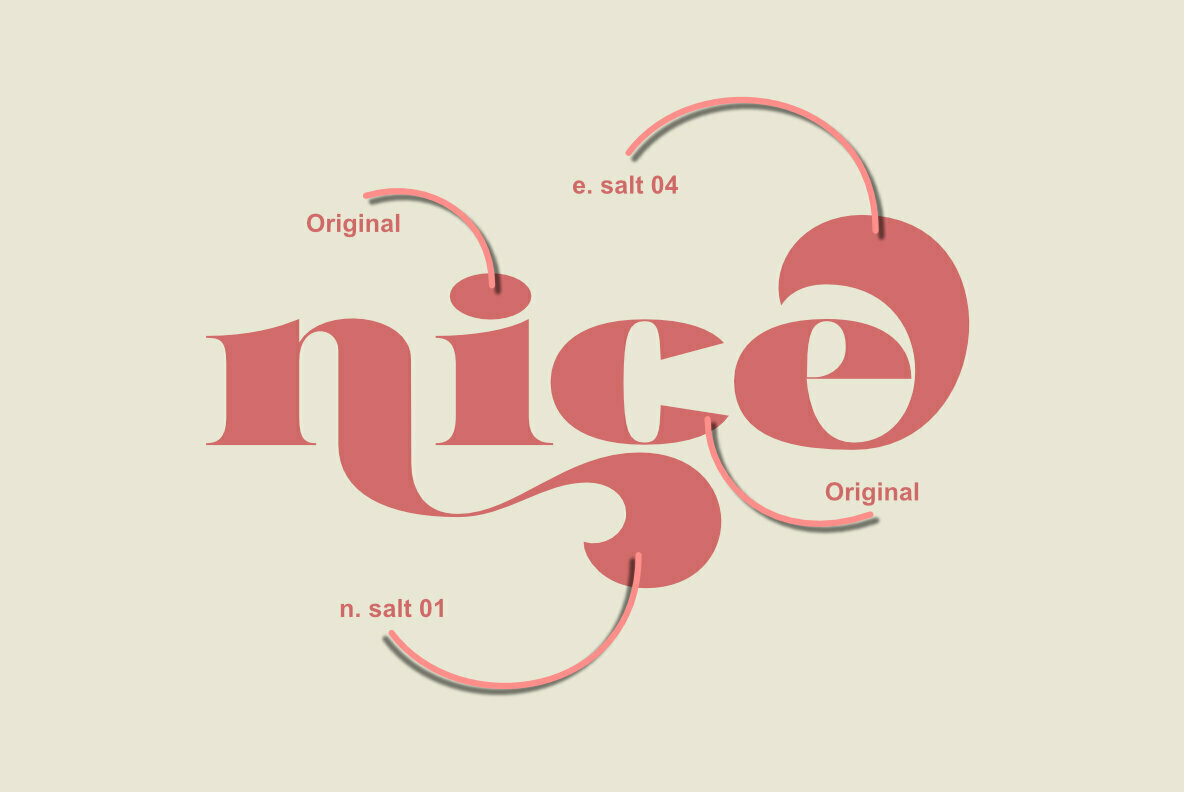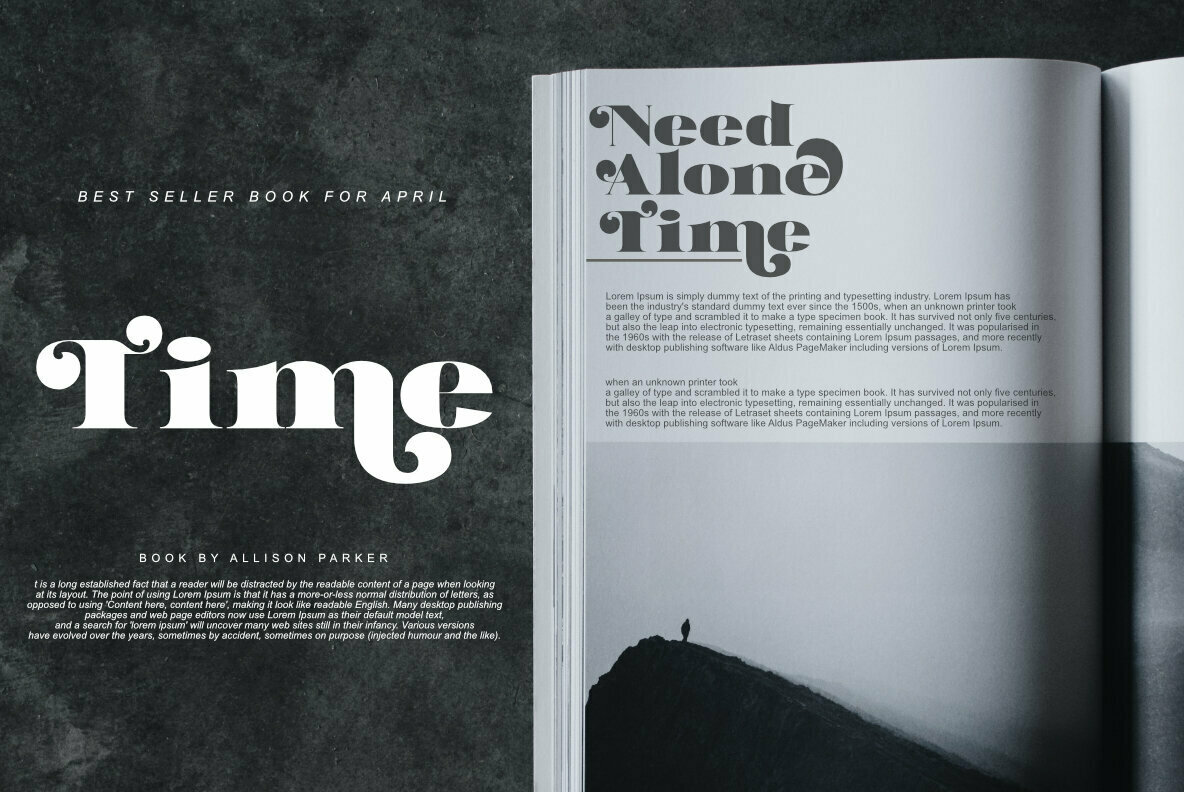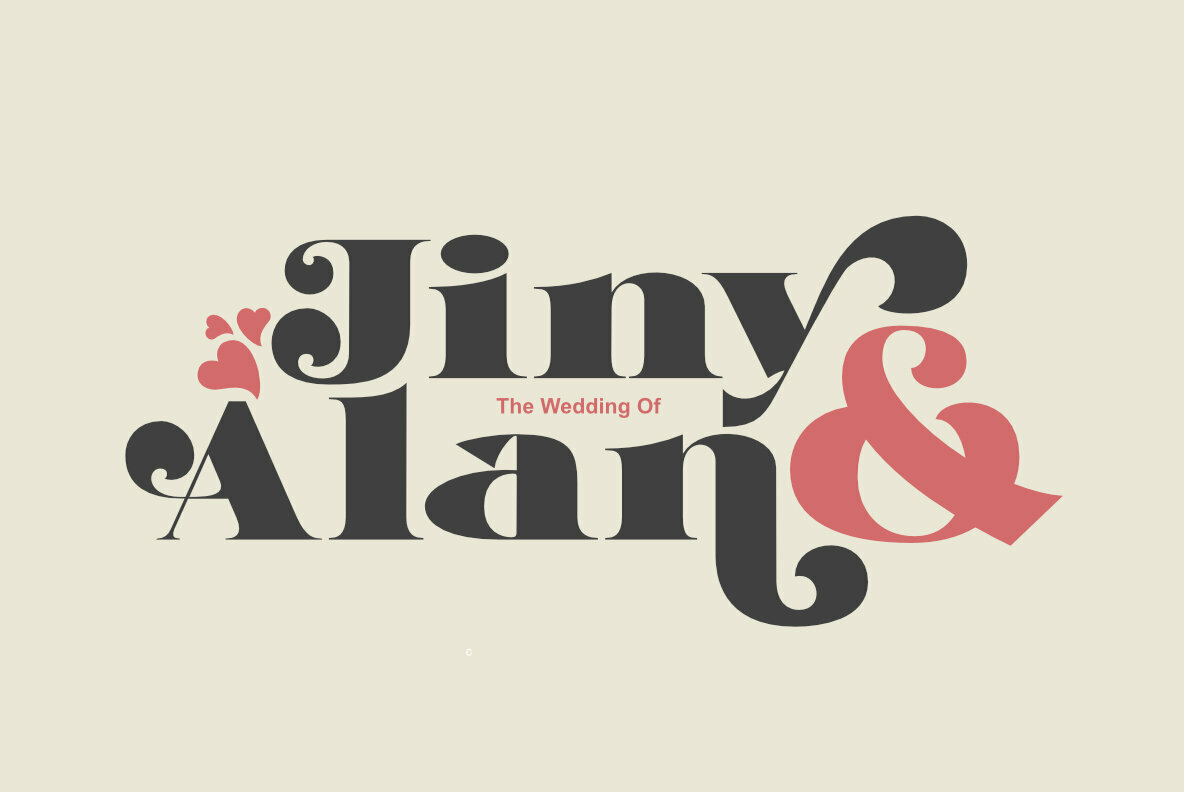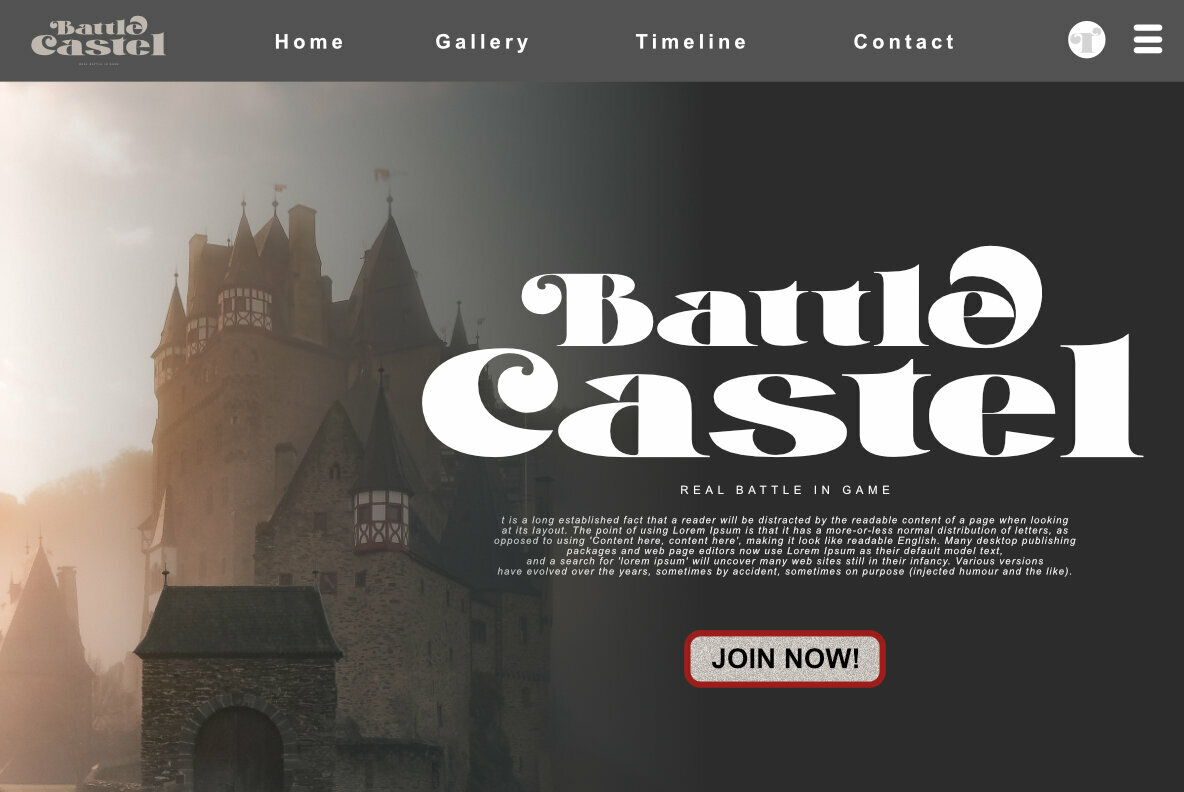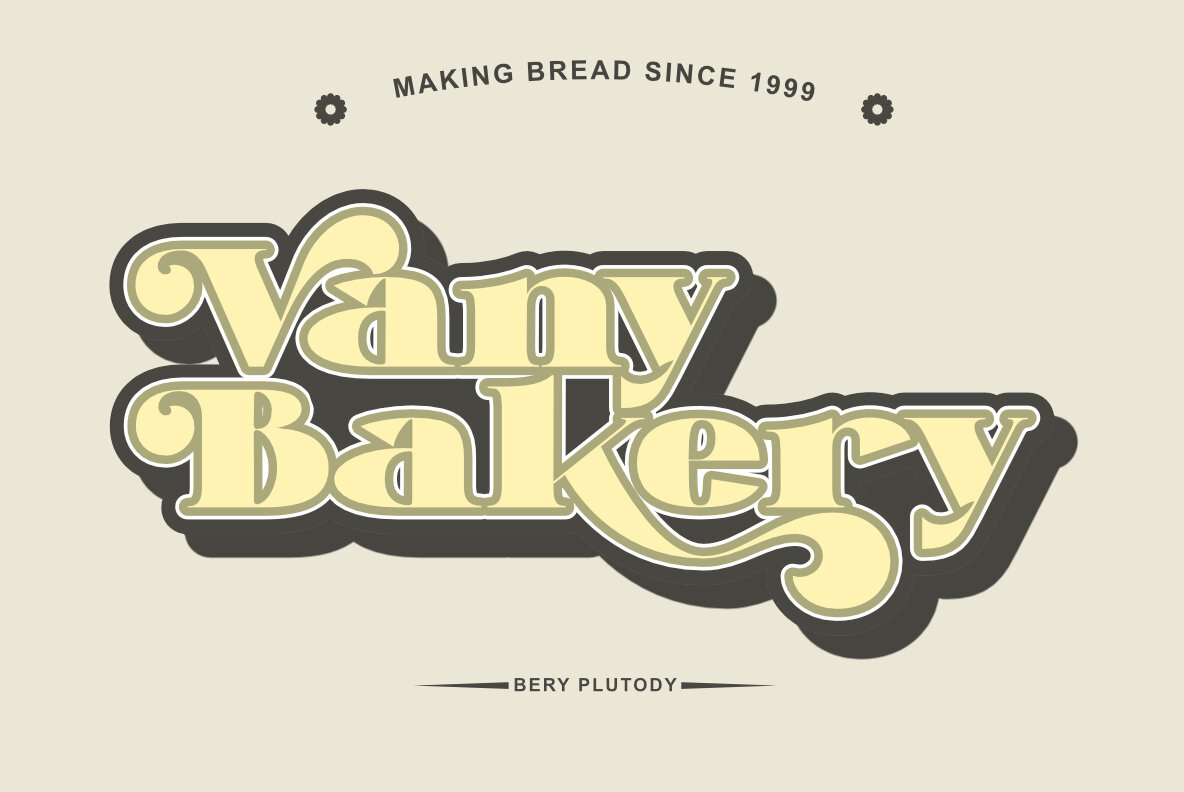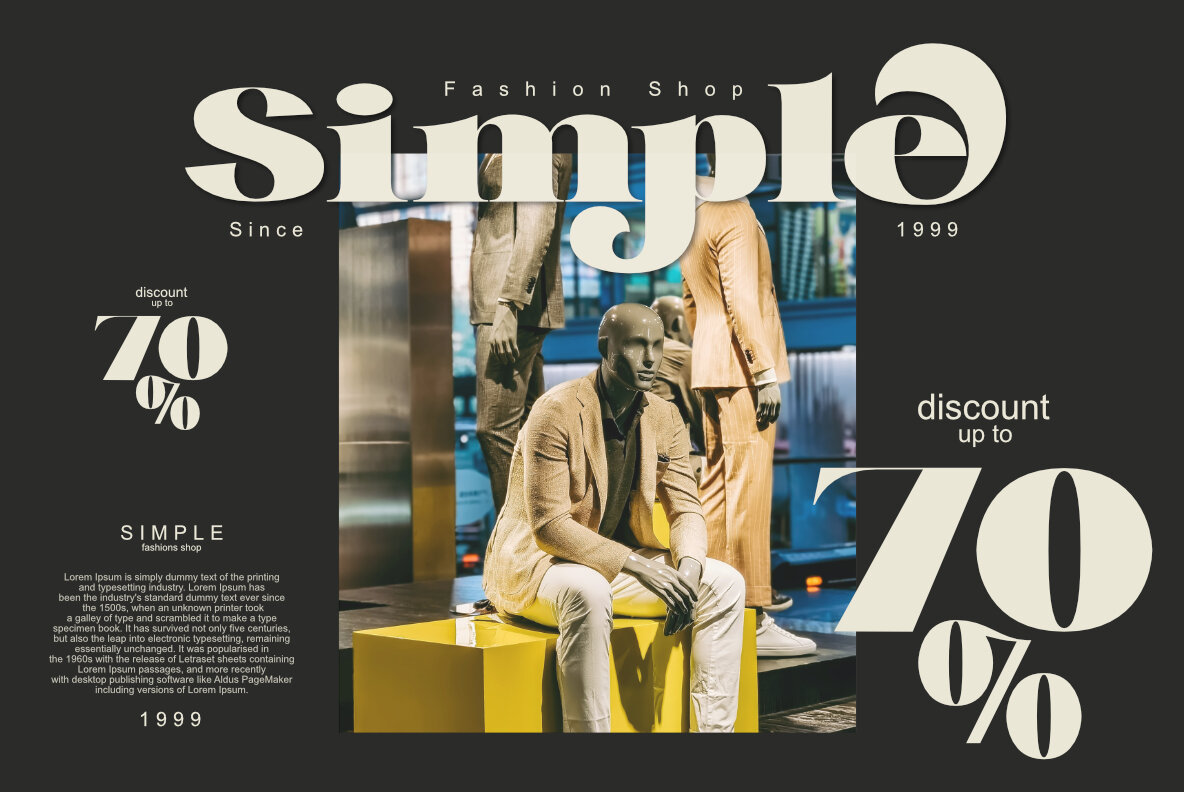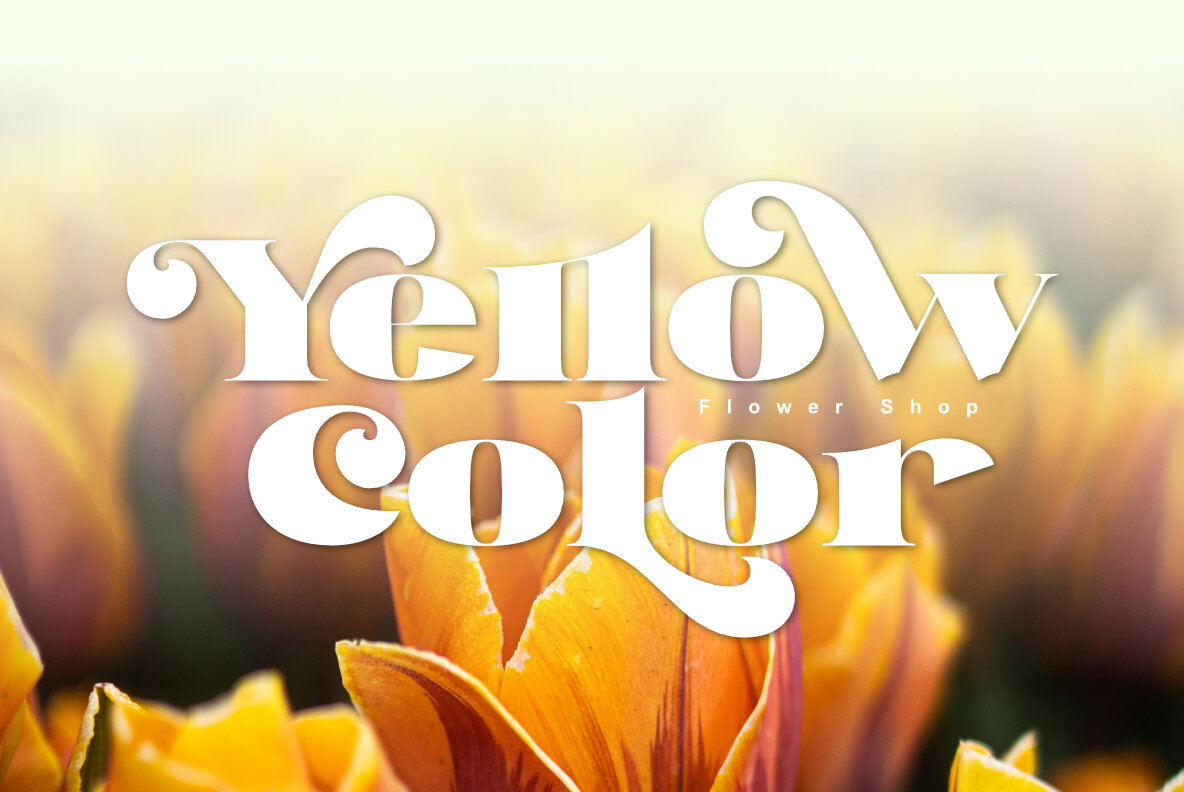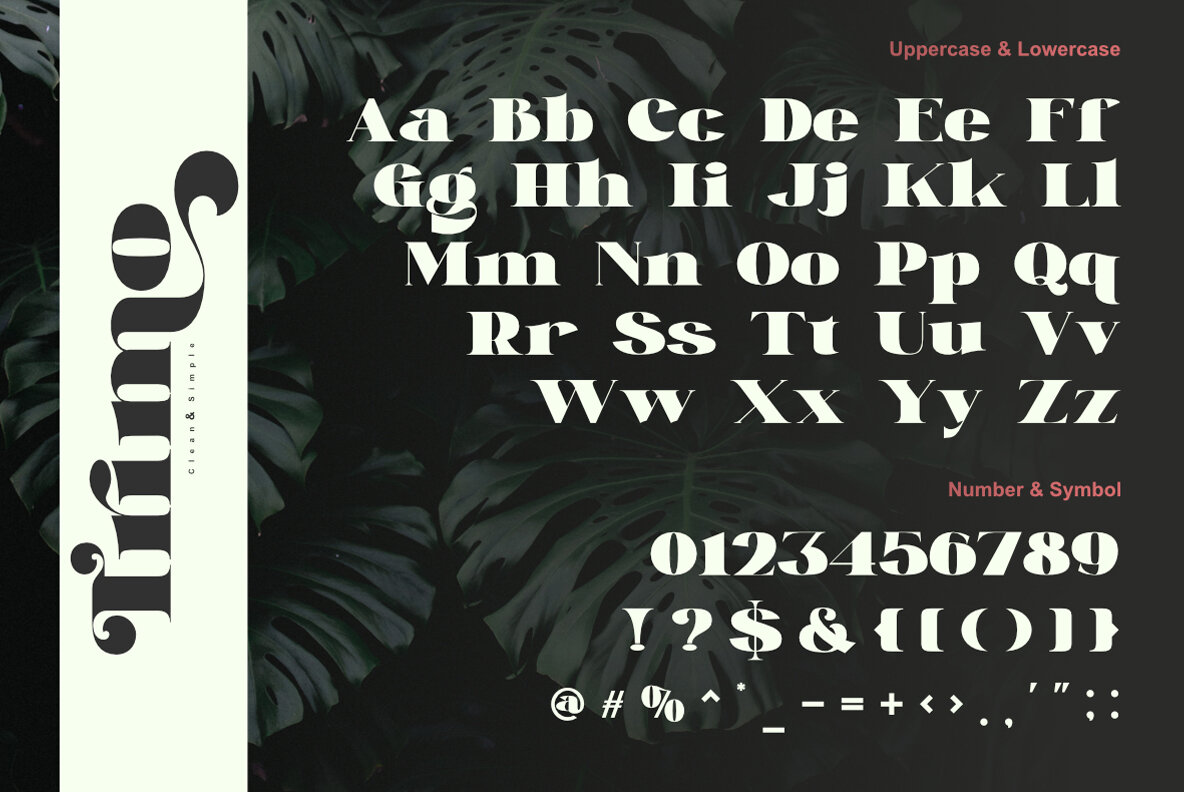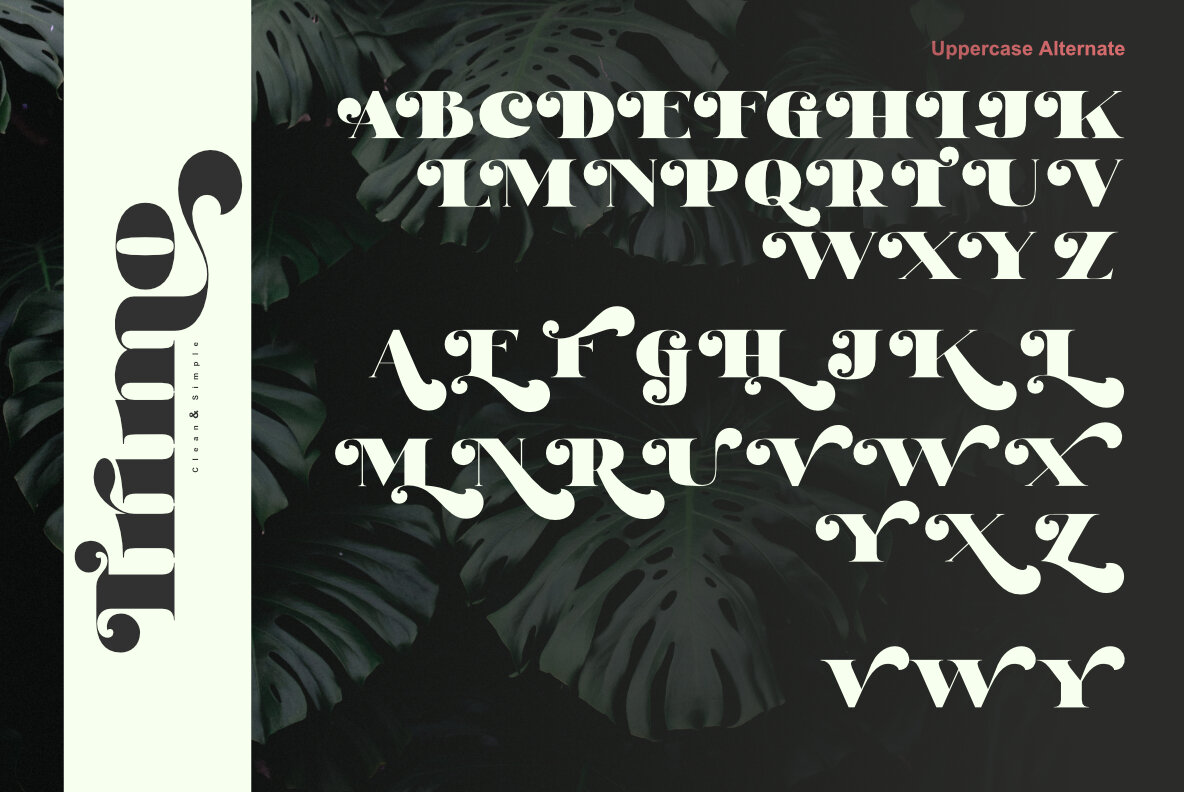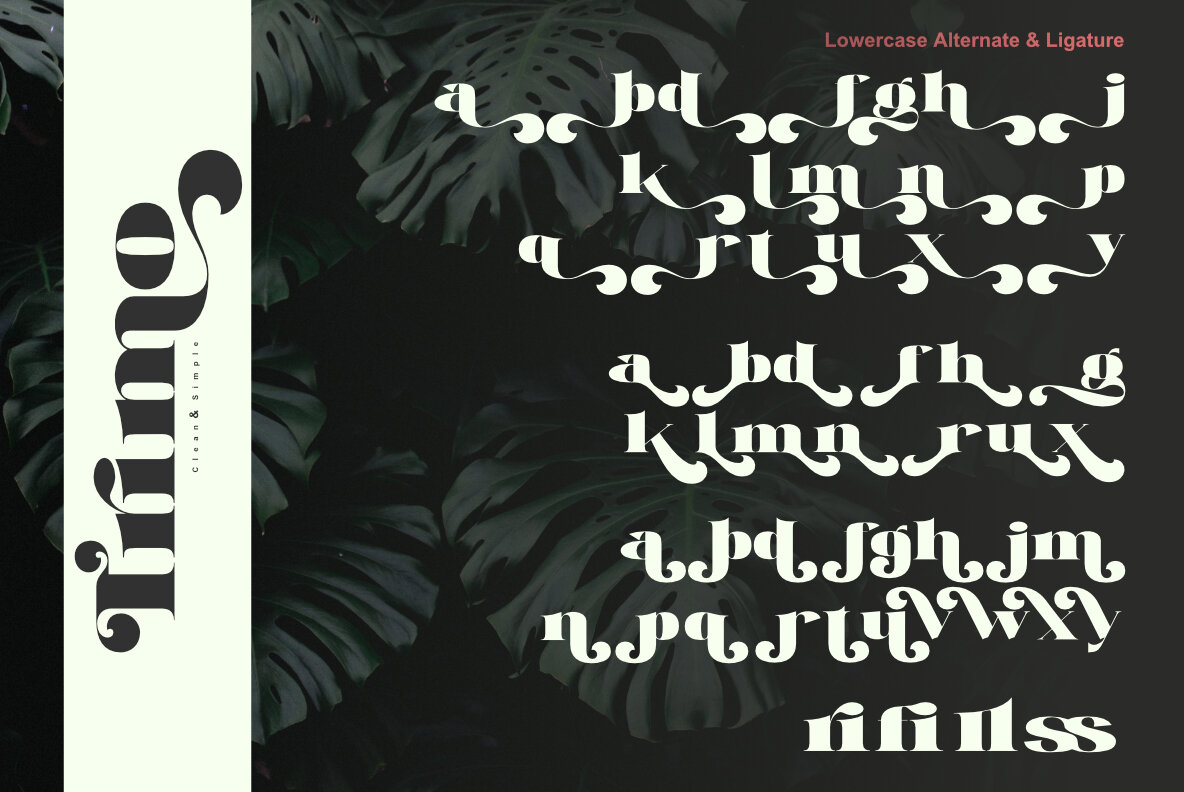
Trimo
Trimo, the clean and simple Modern Serif. This font has an attractive, clean and simple alternative and several ligatures that enhance it, making your font / logo even more attractive. This font has a thick and thin shape, making this font look unique but doesn't leave an elegant impression. This font is especially suitable for logos, invitations, novels, books, magazines, labels, greeting / wedding cards. So what are you waiting for!